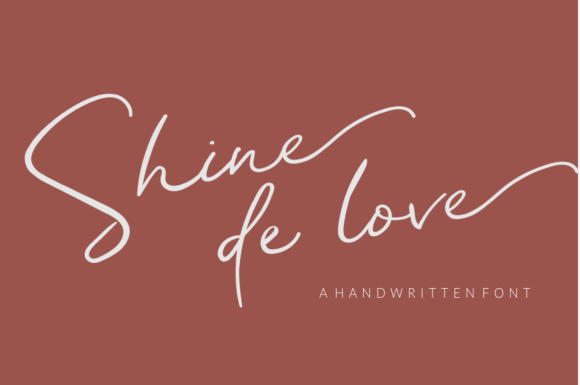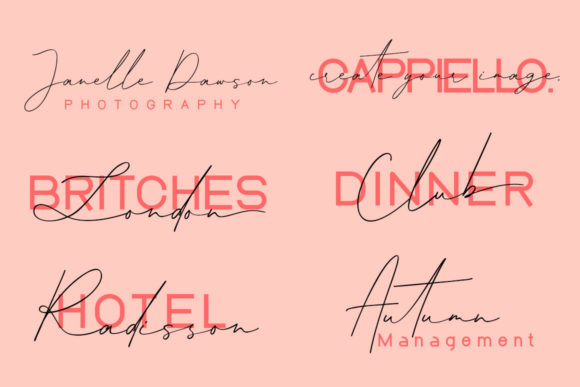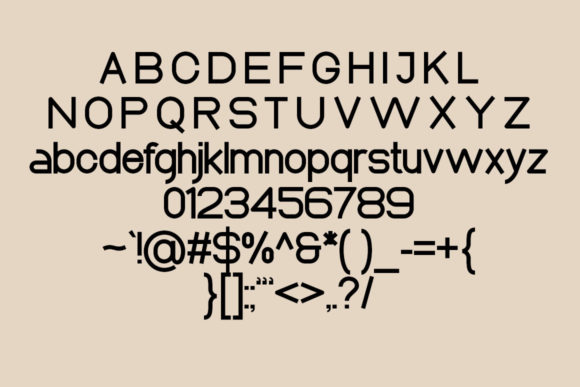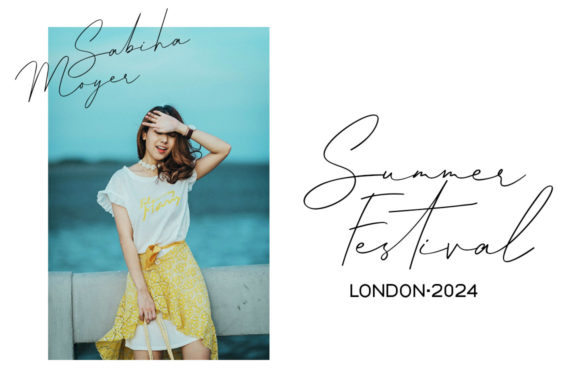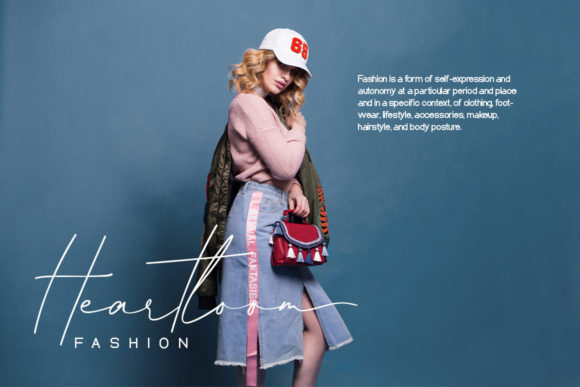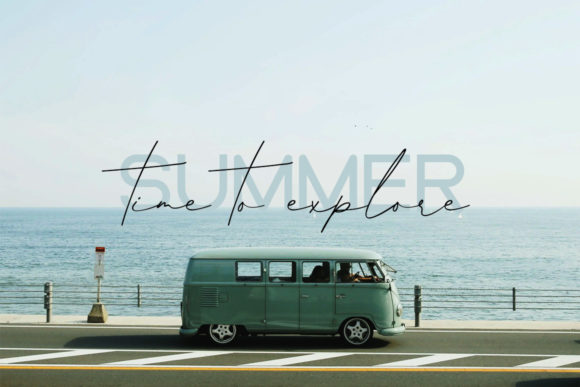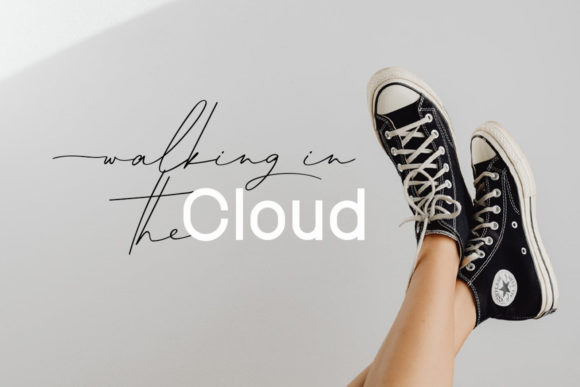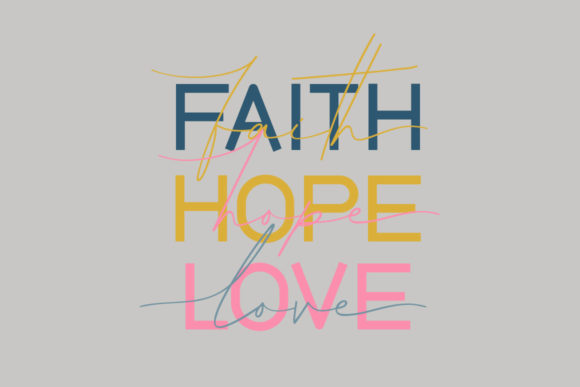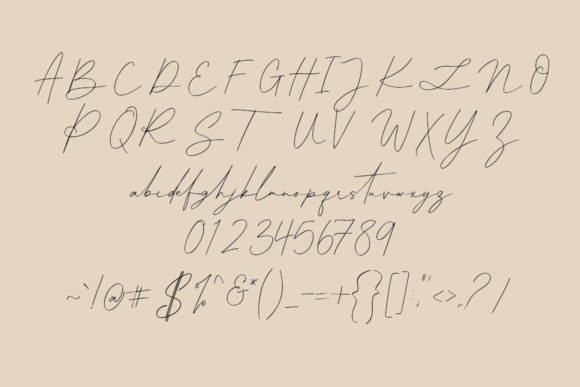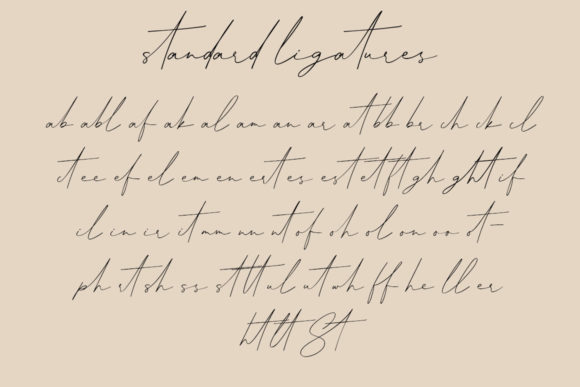
Summer Grow Font
About Summer Grow Font
Summer Grow is a beautiful duo font (script & sans serif). Together or apart, these fonts are ideal for adding a chic and cheery touch to your crafts. Fall in love with its incredibly versatile style and use it to create spectacular designs!